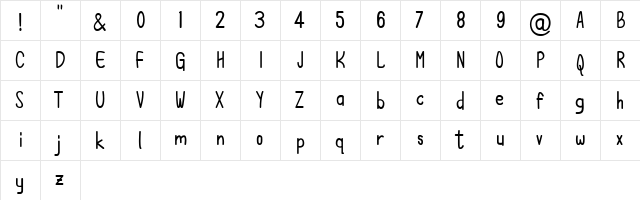
Brownie Girly Regular
Design Context for Brownie Girly Typeface
Brownie Girly is a composed and adaptable typeface that performs quietly and consistently across a wide range of design contexts.